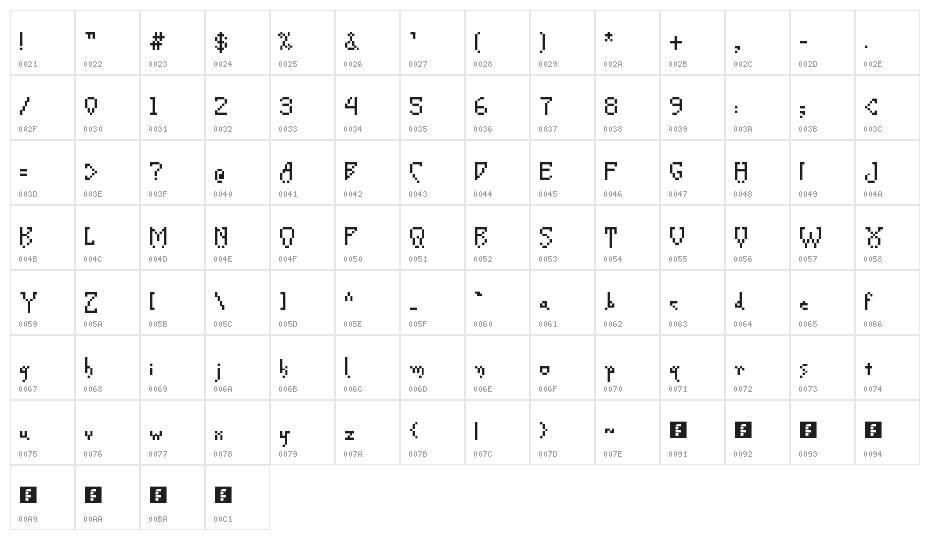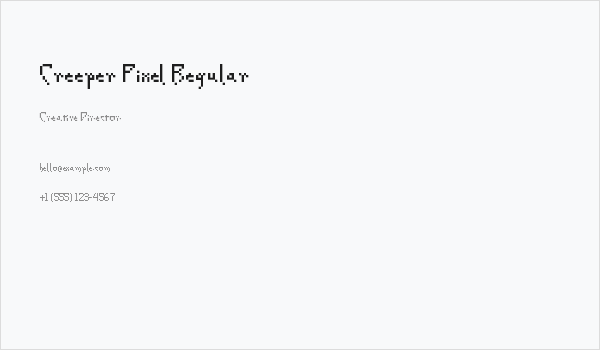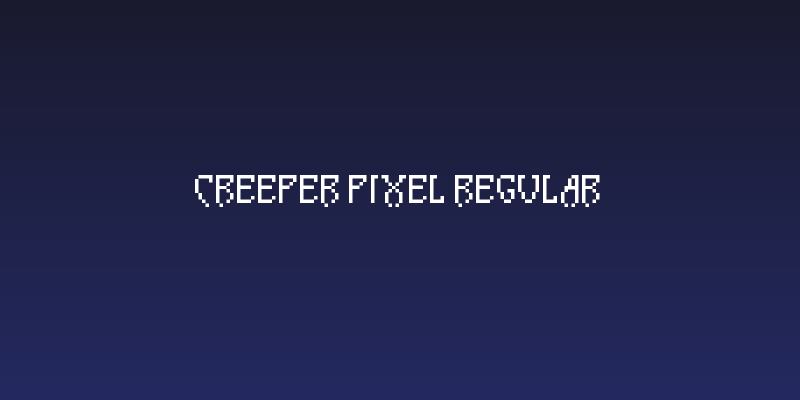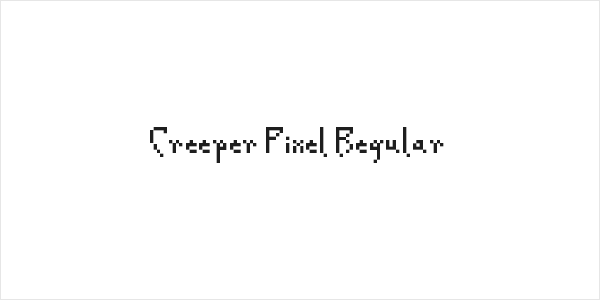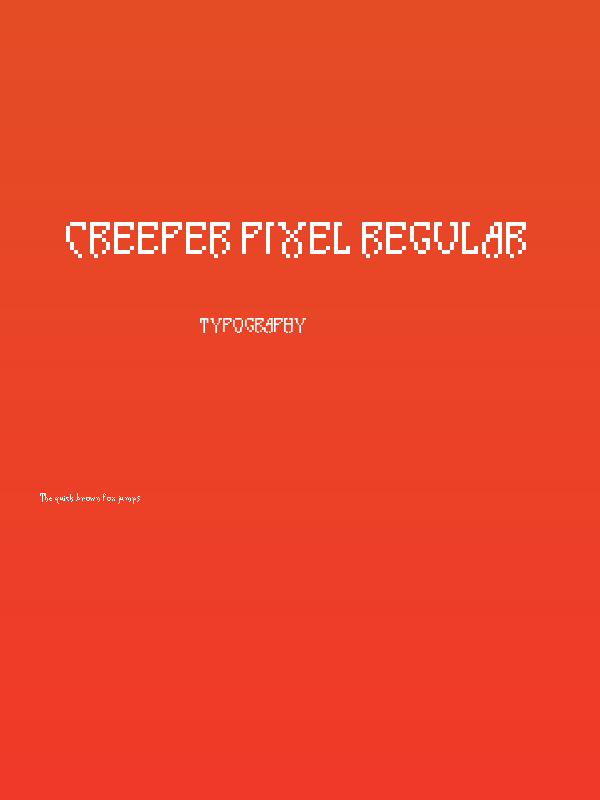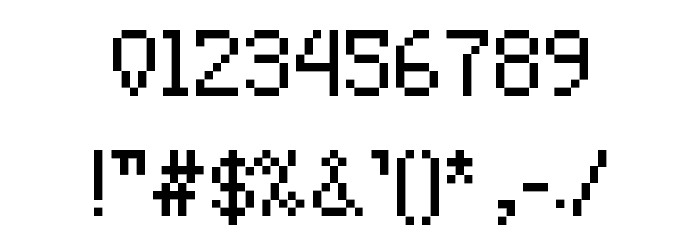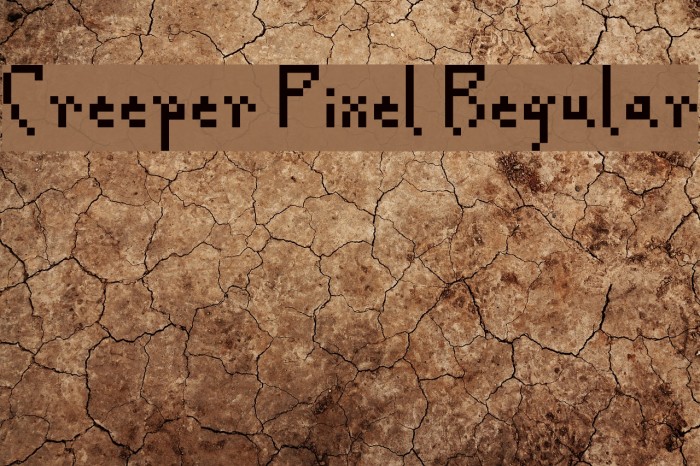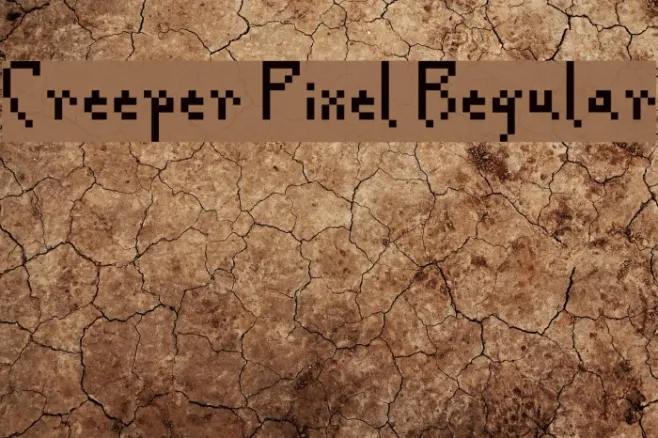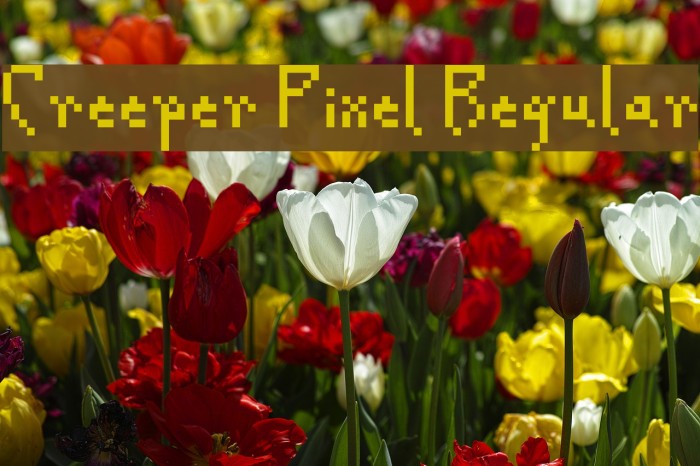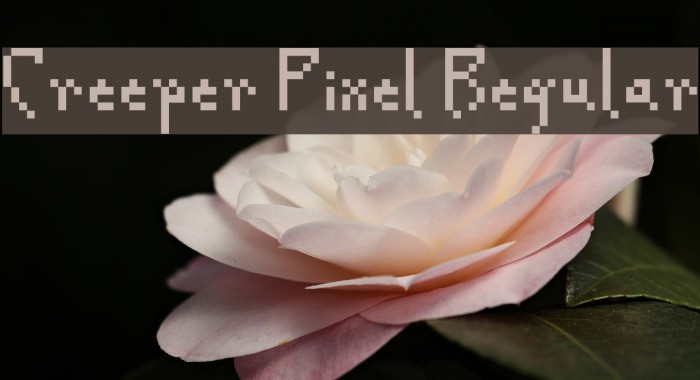
Creeper Pixel Regular Font
Creeper Pixel Regular Description
This font features a distinct pixelated style, reminiscent of classic 8-bit video games. Each character is composed of small square blocks, giving it a retro digital appearance. The uppercase and lowercase letters maintain a consistent blocky form, while numbers and special characters follow the same pixelated pattern. The uniformity in design across all characters ensures a cohesive look, making it ideal for projects that aim to evoke nostalgia or a digital theme. Its simplicity and clarity make it easily readable, even at smaller sizes.
| Use Case | Headlines, Logos, Digital Art |
| Proposed Projects | Ideal for video game design, retro-themed posters, digital art, and any project seeking a nostalgic or digital aesthetic. |